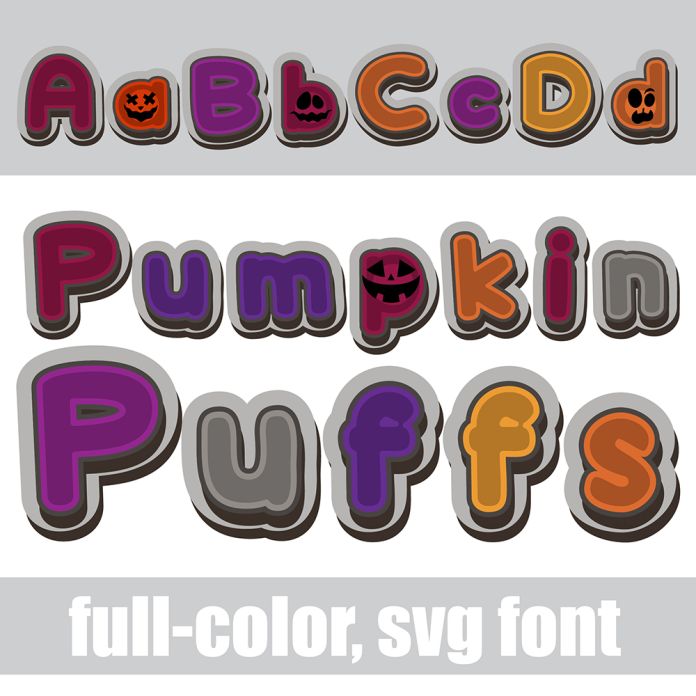
This full-color font features a puffy, layered font in a Hallween color palette with pumpkin faces throughout. There is an alt version you can access through your system's character map that contains additional colors of all the letters. This font works best for titles, displays, posters and more. Please note color fonts will show as black in non compatible programs. This font type is compatible with Silhouette Studio.